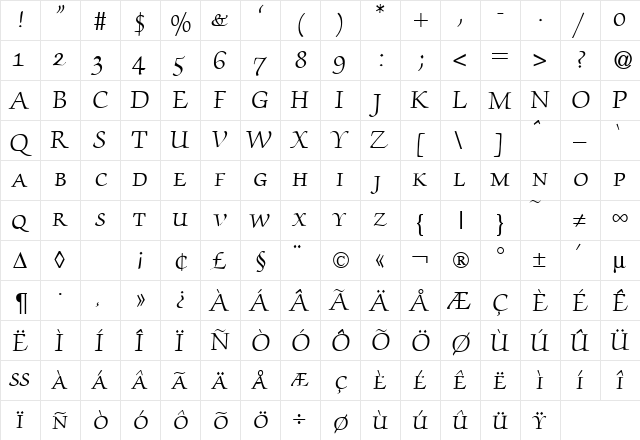
ZabriskieScriptSmc DB Regular
Design Context for ZabriskieScriptSmc DB Typeface
ZabriskieScriptSmc DB brings a calligraphic fluidity to the page — its connecting strokes and expressive curves give it an unmistakably human quality.
Font Pairing: Combine ZabriskieScriptSmc DB with a simple geometric sans for maximum contrast — the tension between flowing curves and clean structure is a classic typographic pairing.
Pro Tip: Use ZabriskieScriptSmc DB for short runs of text — names, titles, or taglines. Extended body copy in script faces tires the eye quickly.